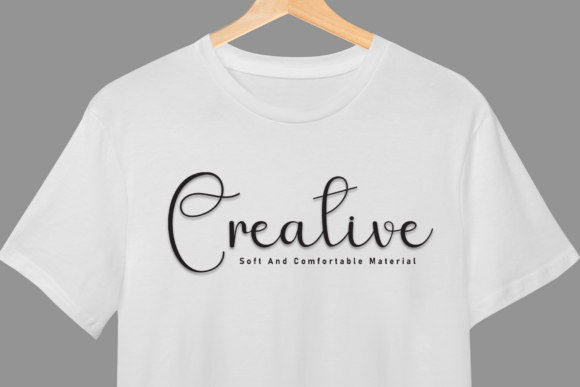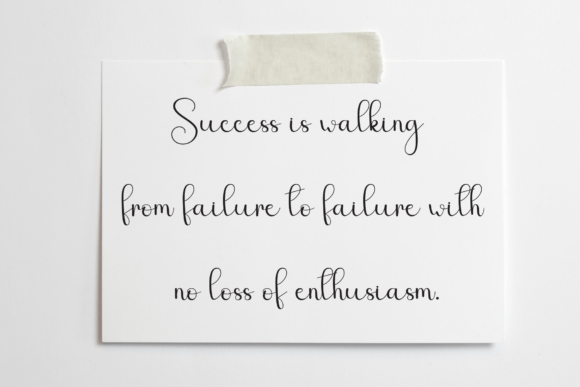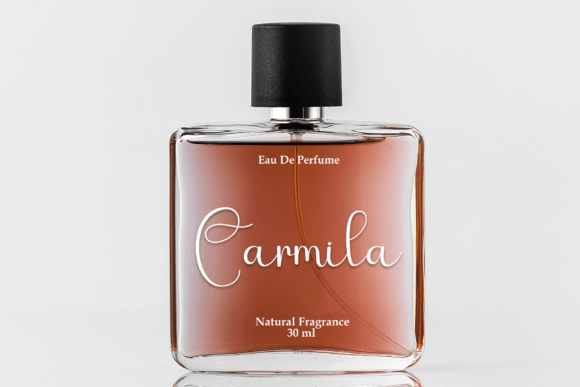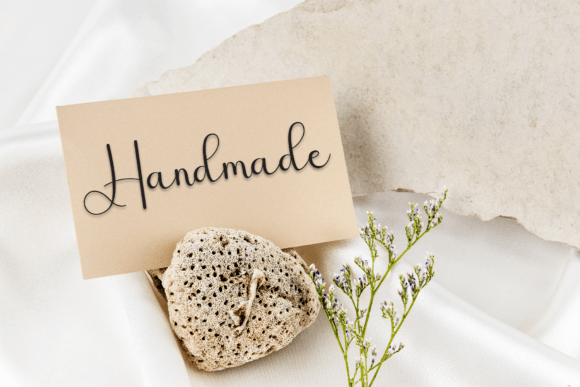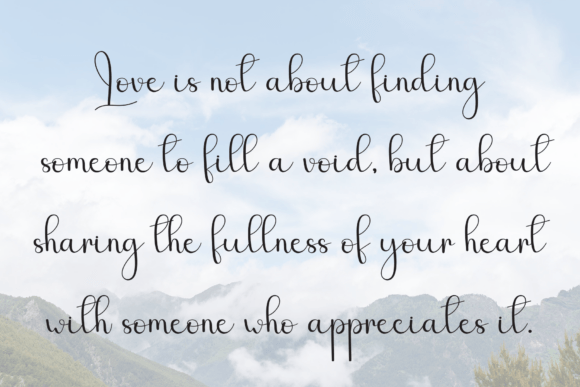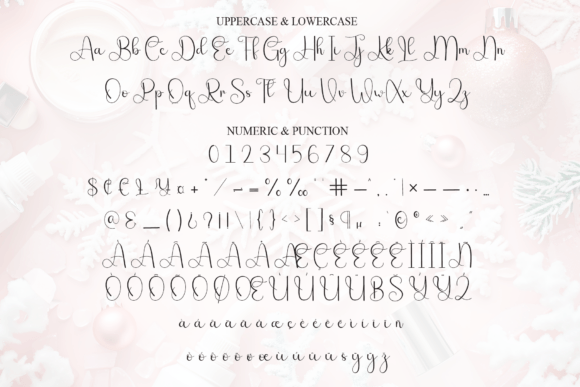
The Perfect Melody for Your Designs
Have you ever stumbled upon a font that instantly lifts your mood and sparks creativity? For many designers, this magical moment is a defining experience that sets the tone for their next project. It’s a feeling that’s hard to replicate, but one font that comes close to capturing this essence is the Beauty Jingle Font.
This charming handwritten display font is more than just a pretty face; it’s a tool designed to add a touch of whimsy and elegance to your designs. Whether you’re working on a wedding invitation, greeting card, or any other project that requires a sprinkle of joy, Beauty Jingle Font is sure to elevate your creations and leave a lasting impression. Its captivating simplicity makes it a valuable addition to any designer’s toolkit, allowing them to craft unique and refined designs that stand out from the crowd.
Beauty Jingle Font Key Features
- Font Style: Script Font, perfect for adding a touch of elegance and sophistication to your designs.
- Unique Characteristics: Features a unique, hand-drawn design with intricate details and flourishes, making it stand out in any design.
Beauty Jingle Font Review
I recently had the chance to work with the Beauty Jingle Font, and I have to say it’s a mixed bag. Here are my thoughts.
- The font is incredibly versatile and can be used for a wide range of projects, from beauty and fashion to food and lifestyle.
- The font’s playful and cursive style makes it perfect for creating eye-catching headlines and titles.
- The font includes a wide range of characters, including accents and special symbols, which makes it a great choice for international projects.
- The font can be a bit too playful and cursive for some projects, making it difficult to read in large blocks of text.
- The font is not suitable for formal or professional projects, as it can come across as too whimsical.
- The font does not include a bold or italic version, which can limit its use in certain situations.
Overall, I think the Beauty Jingle Font is a great choice for creative projects that require a playful and eye-catching font. However, it may not be the best choice for formal or professional projects. With a bit of creative direction and restraint, this font can be a real showstopper.
The Beauty Jingle Font is ideal for creating eye-catching headings and titles for beauty and fashion-related designs. It’s also great for adding a touch of elegance to your designs. Some common use cases include:
- Beauty product labels and packaging.
- Fashion magazine and blog titles.
- Spa and wellness center branding.
Alternatives to “Beauty Jingle Font” for Designers
Great Vibes Font is a modern, elegant script font that’s perfect for creating a luxurious and sophisticated look. It’s ideal for branding, packaging, and advertising materials where a touch of class is required.
Compared to Beauty Jingle Font, Great Vibes Font has a more refined and polished feel, making it suitable for high-end brands and businesses.
Lobster Font is a fun, casual script font that’s great for creating a playful and approachable atmosphere. It’s perfect for social media, blogs, and websites where a relaxed tone is desired.
Lobster Font is more laid-back and informal compared to Beauty Jingle Font, making it ideal for younger audiences and creative projects.
Pacifico Font is a beautiful, elegant serif font that’s inspired by the ocean. It’s perfect for creating a calming and serene atmosphere, making it ideal for wellness, travel, and lifestyle brands.